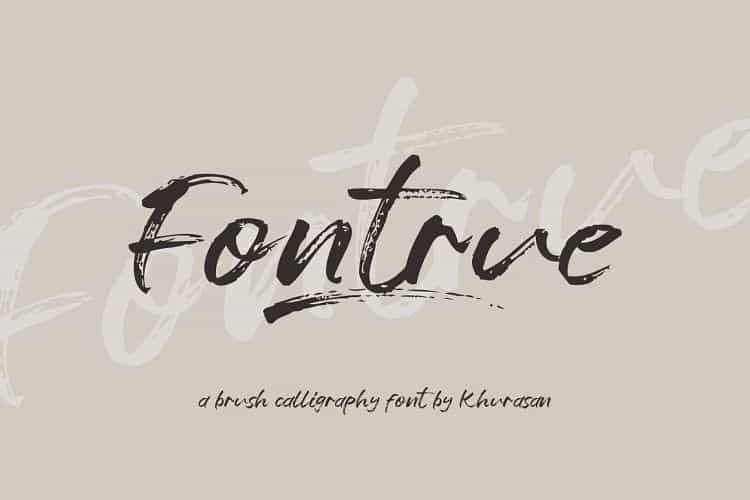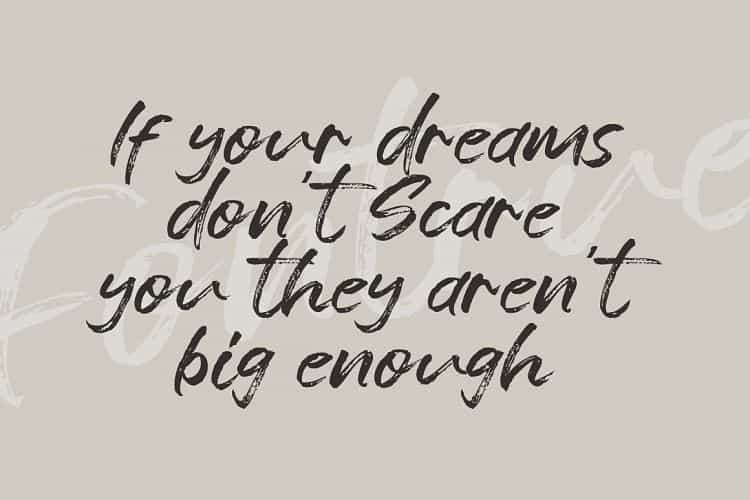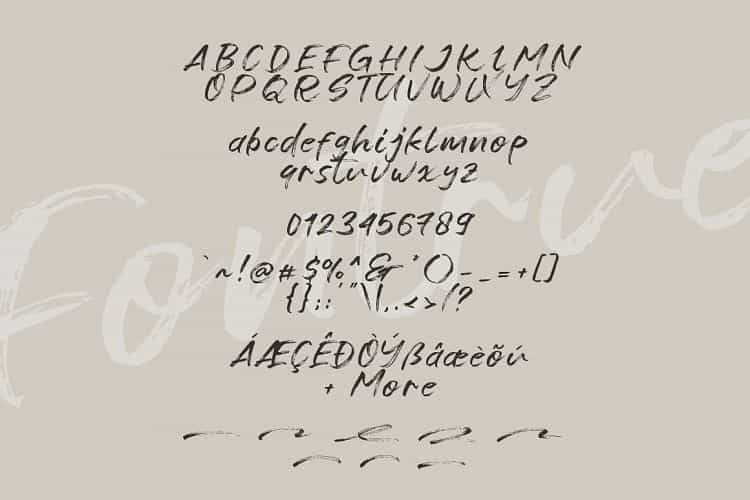
Fontrue is a dry hand brushed font. It was designed to be perfect and allows you to make great hand-lettering fast and with no trouble at all. This font is perfect for logos, handwritten quotes, product packaging, header, poster and so on.